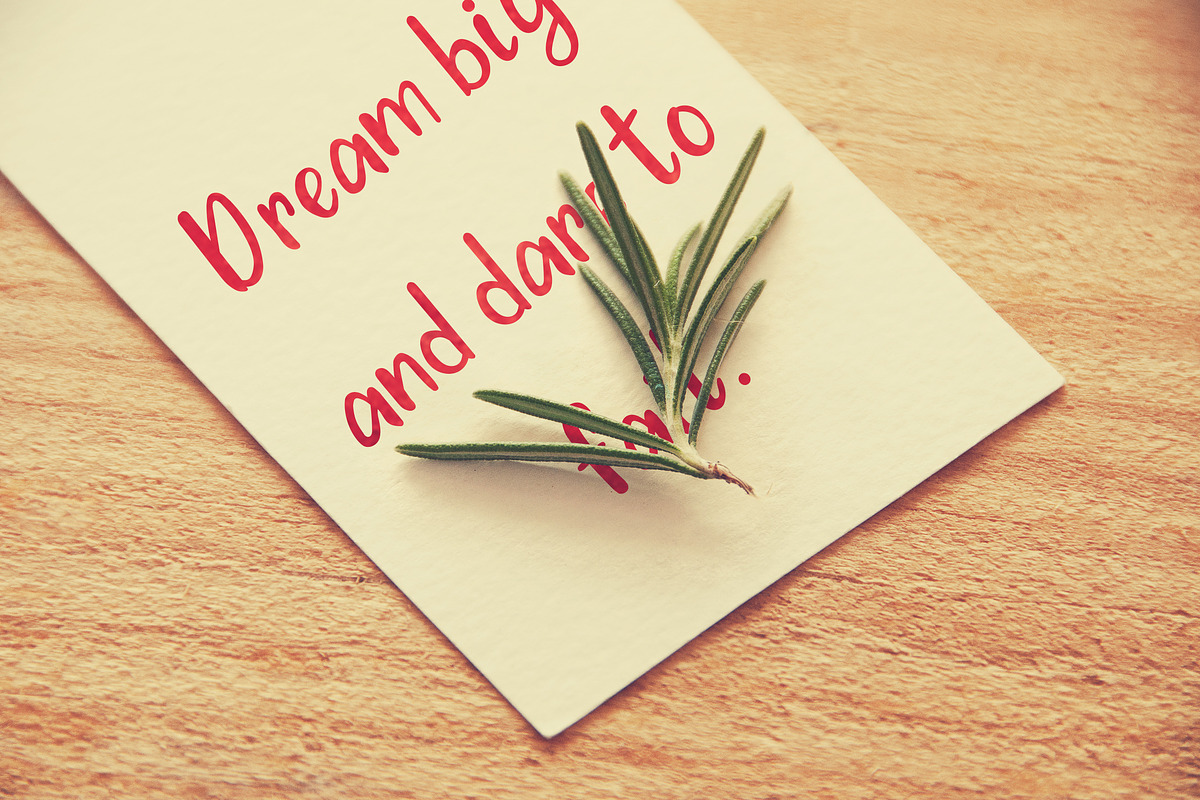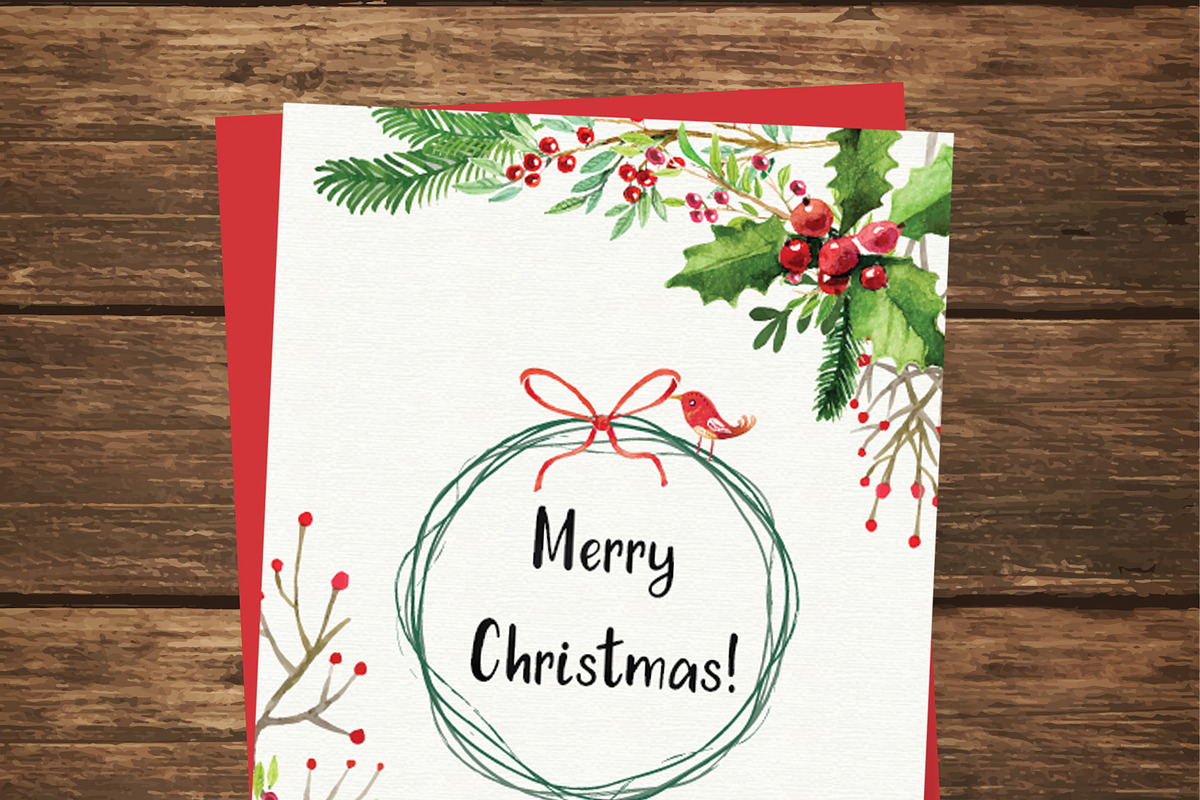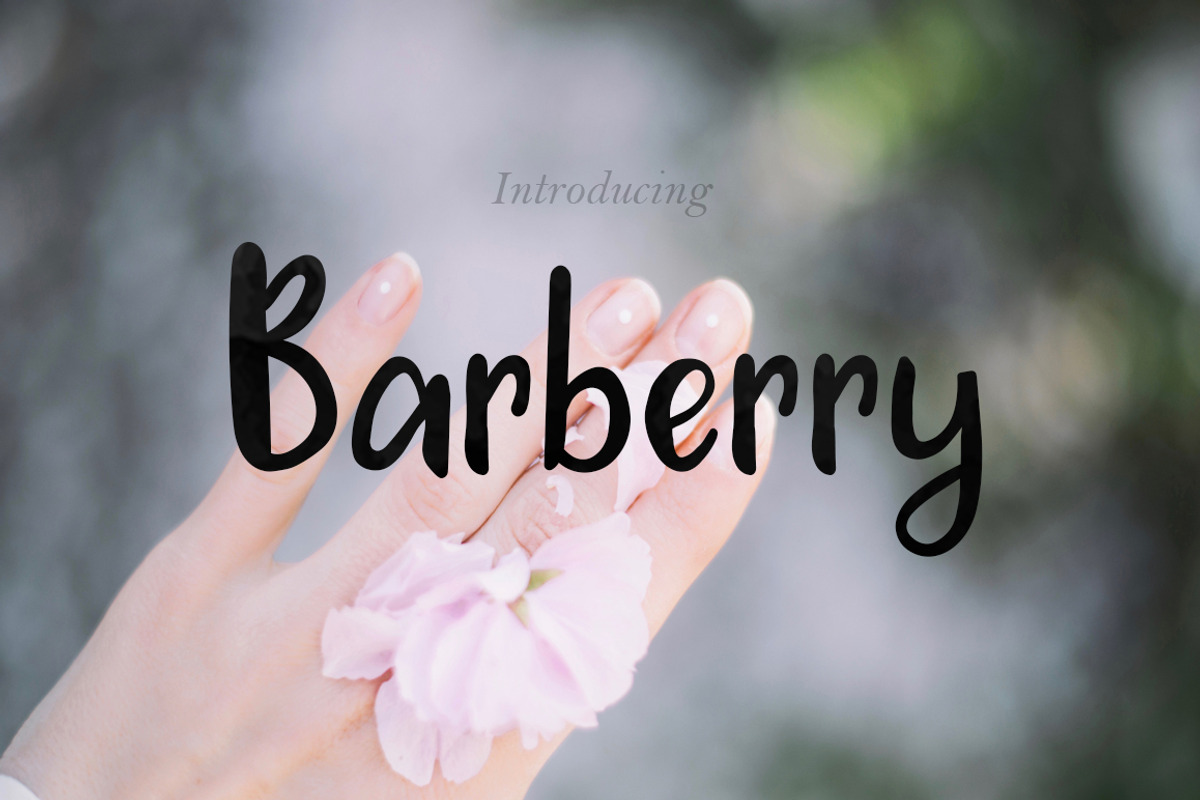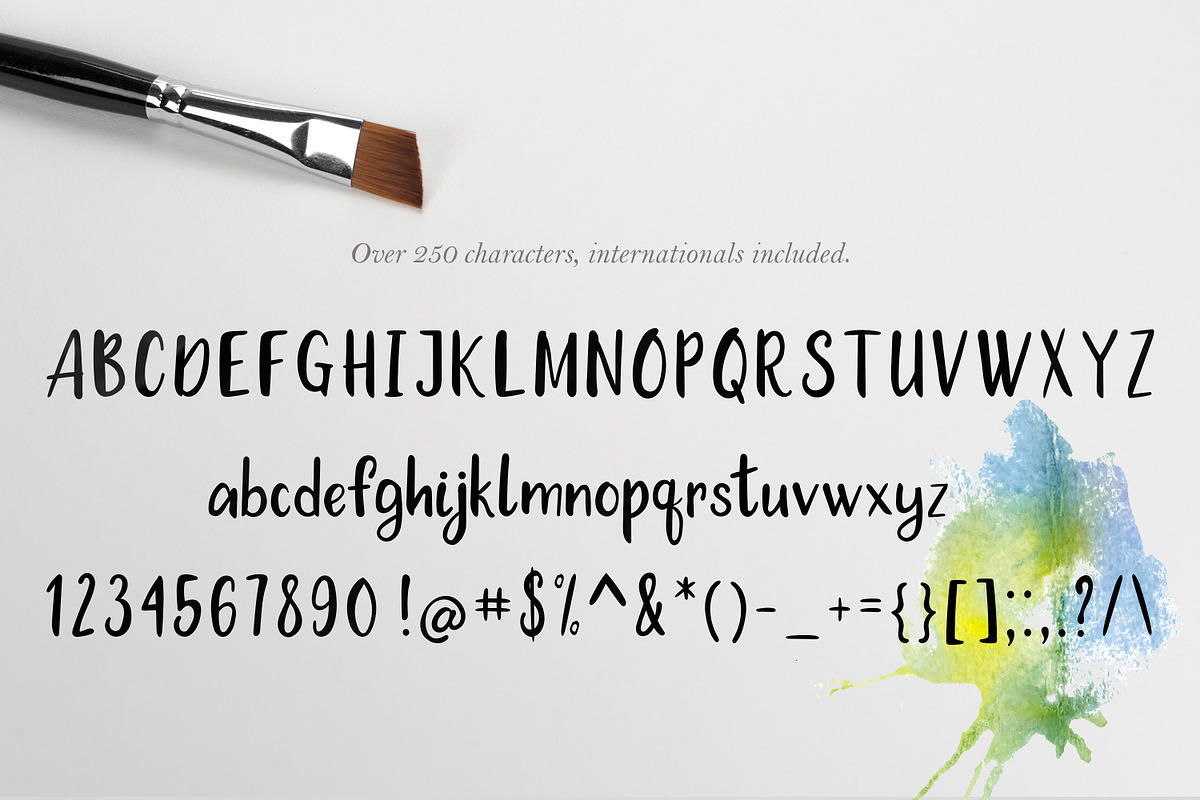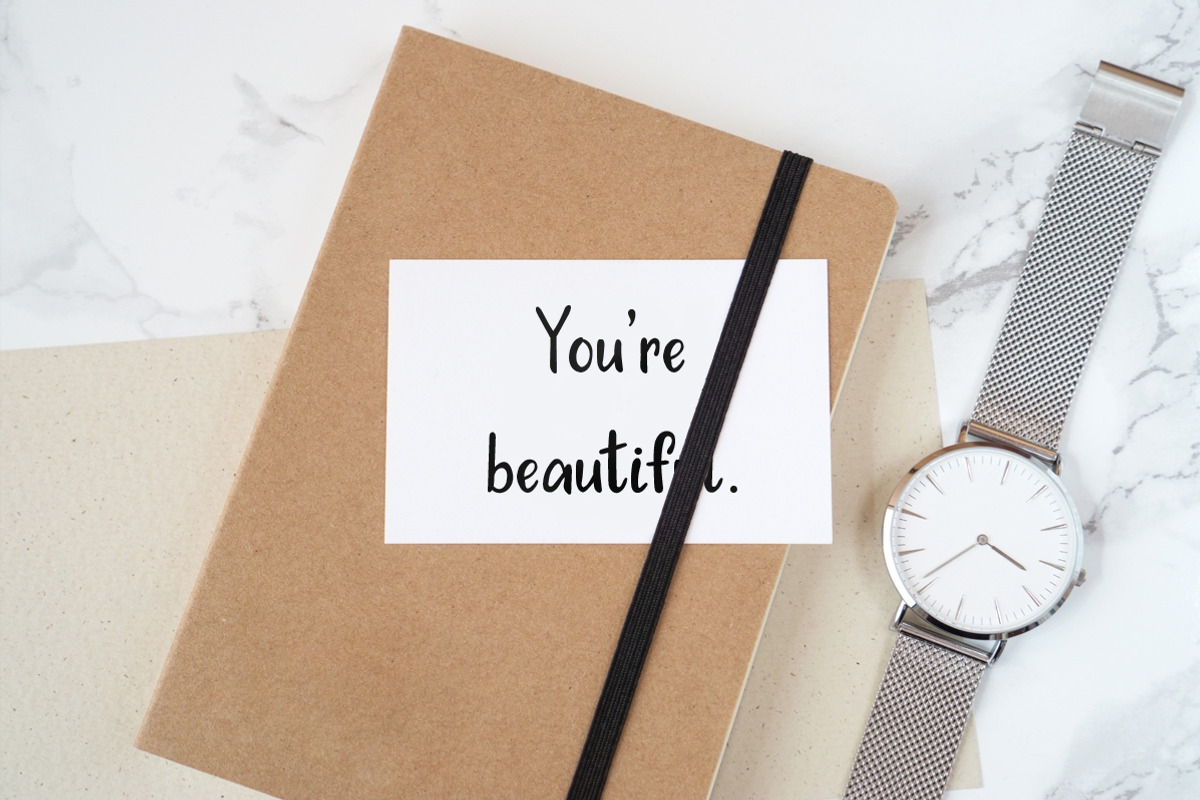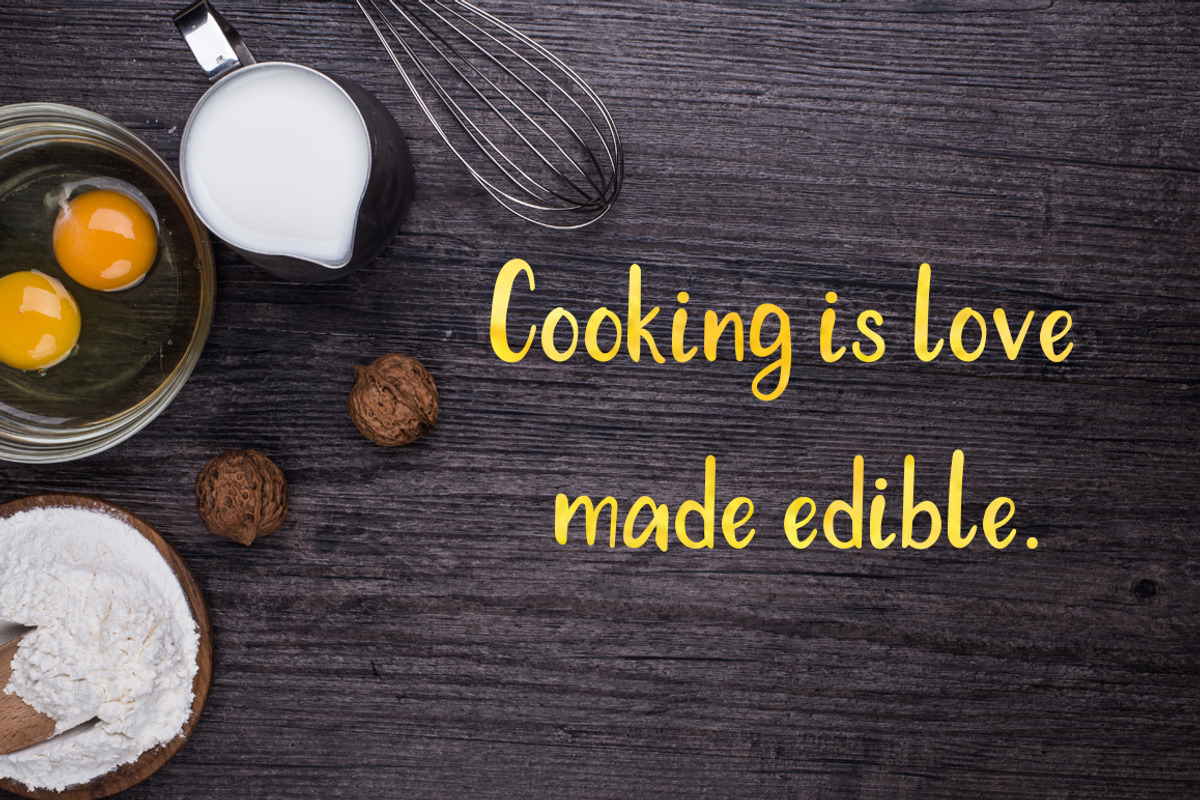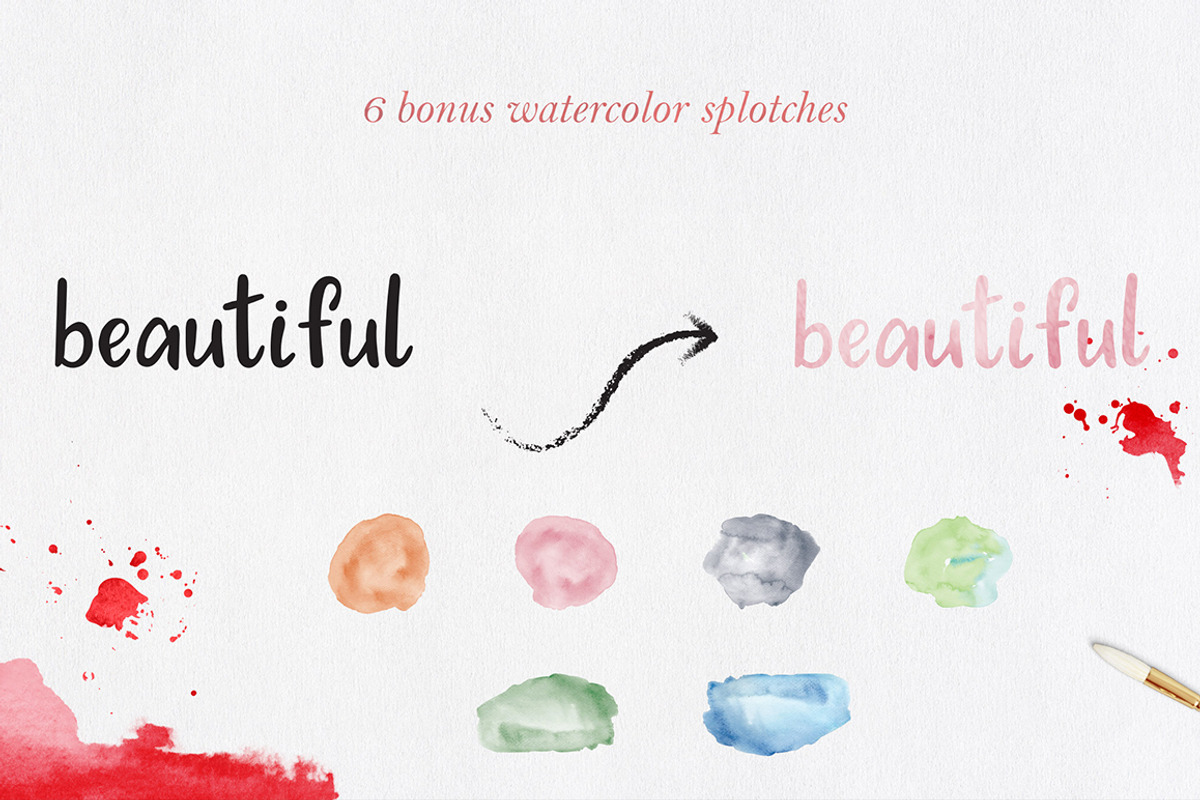
Barberry Font + Extras
Barberry Font + Extras by Carola-Corujan is a font selected for branding, posters, packaging, typography.
- ♥ Barberry comes with multilingual support, with accented characters for international users.
Why Barberry Font + Extras is worth a look
Barberry Font + Extras by Carola-Corujan fits naturally into Branding, posters, packaging, typography.